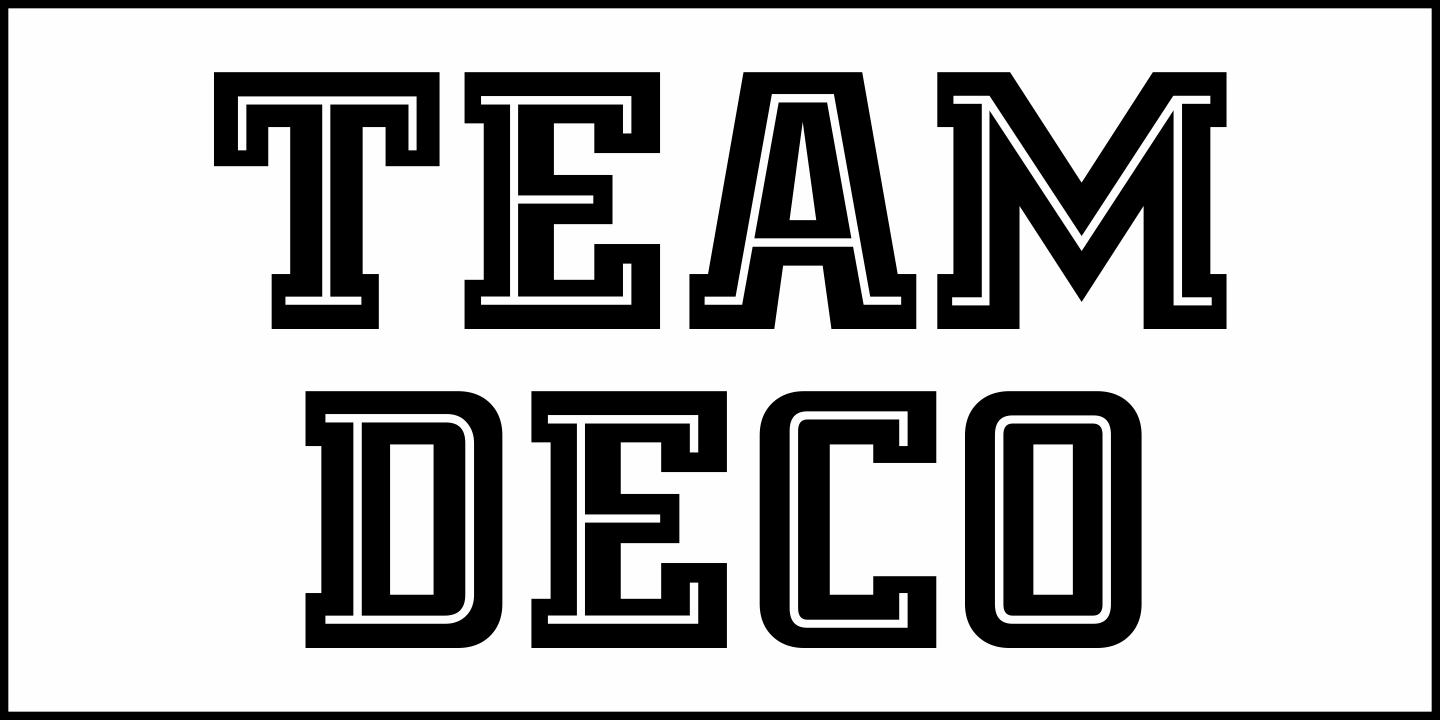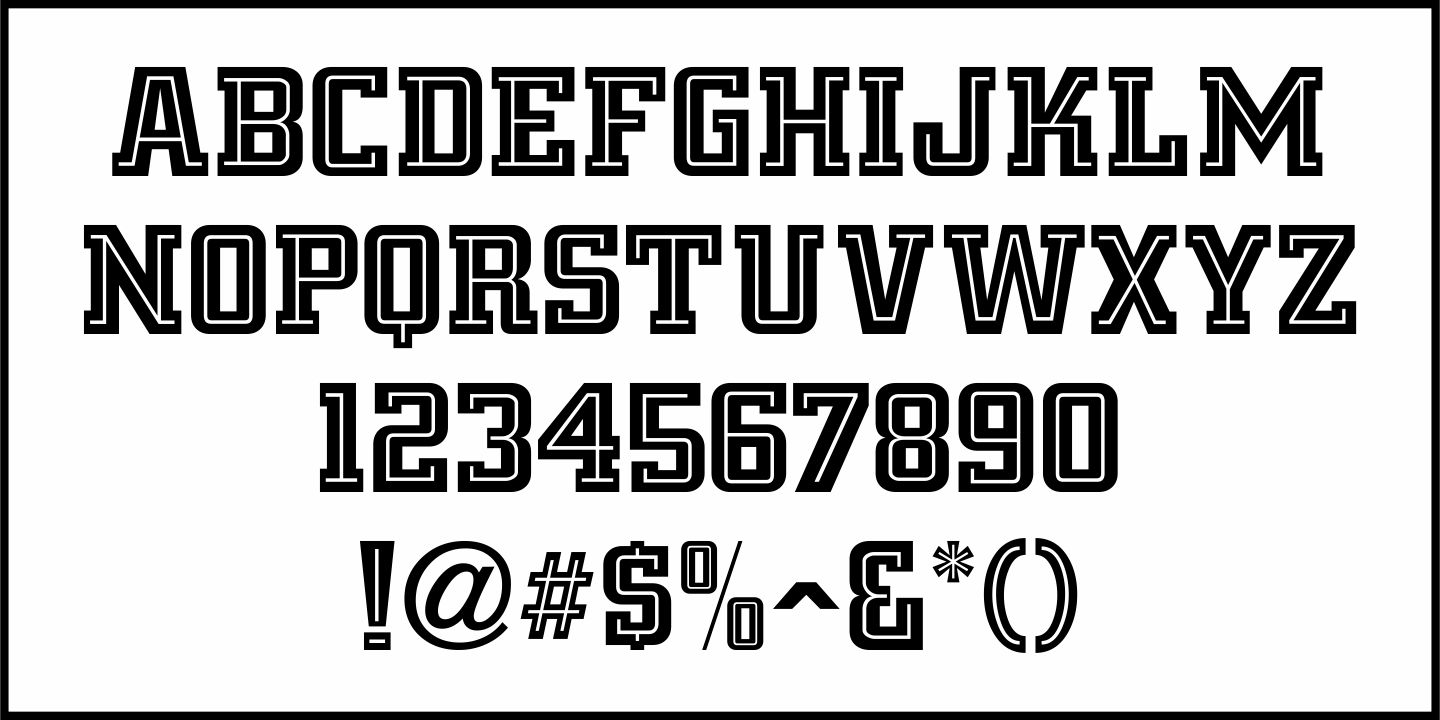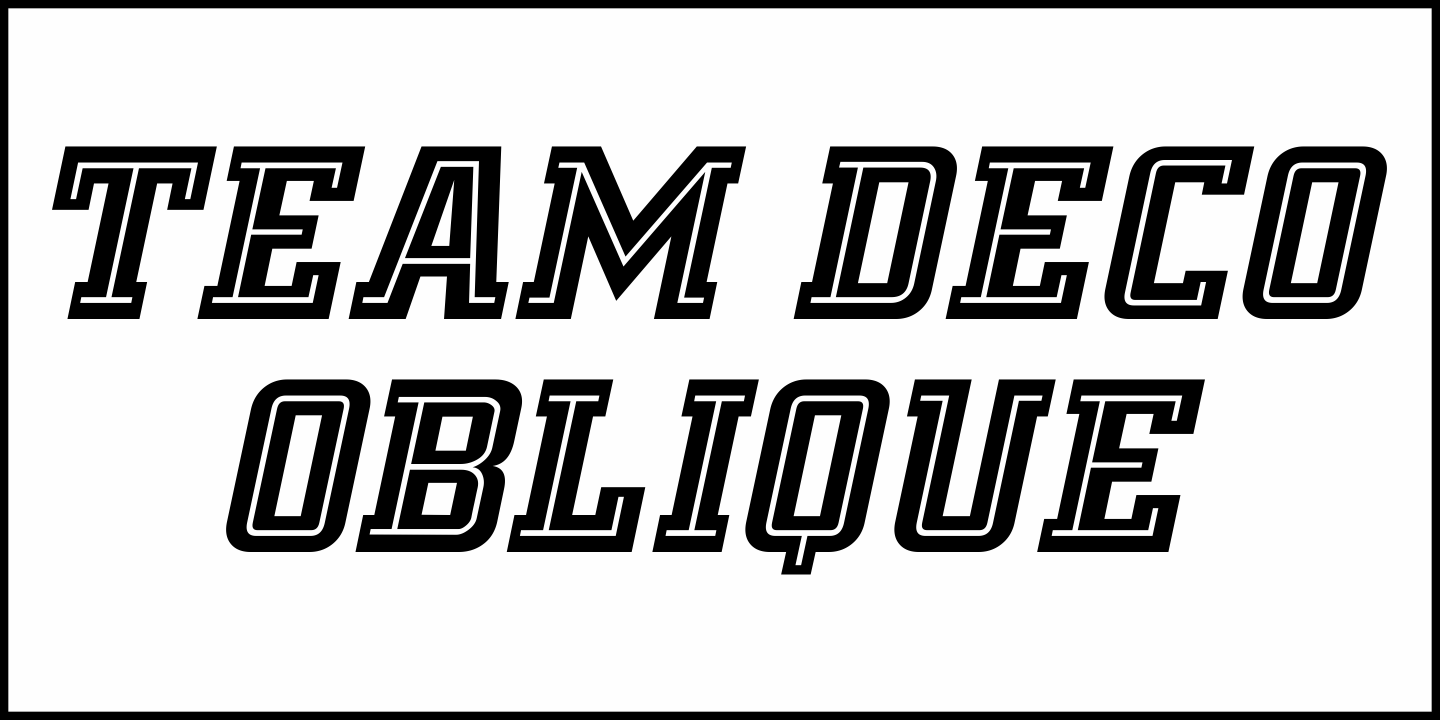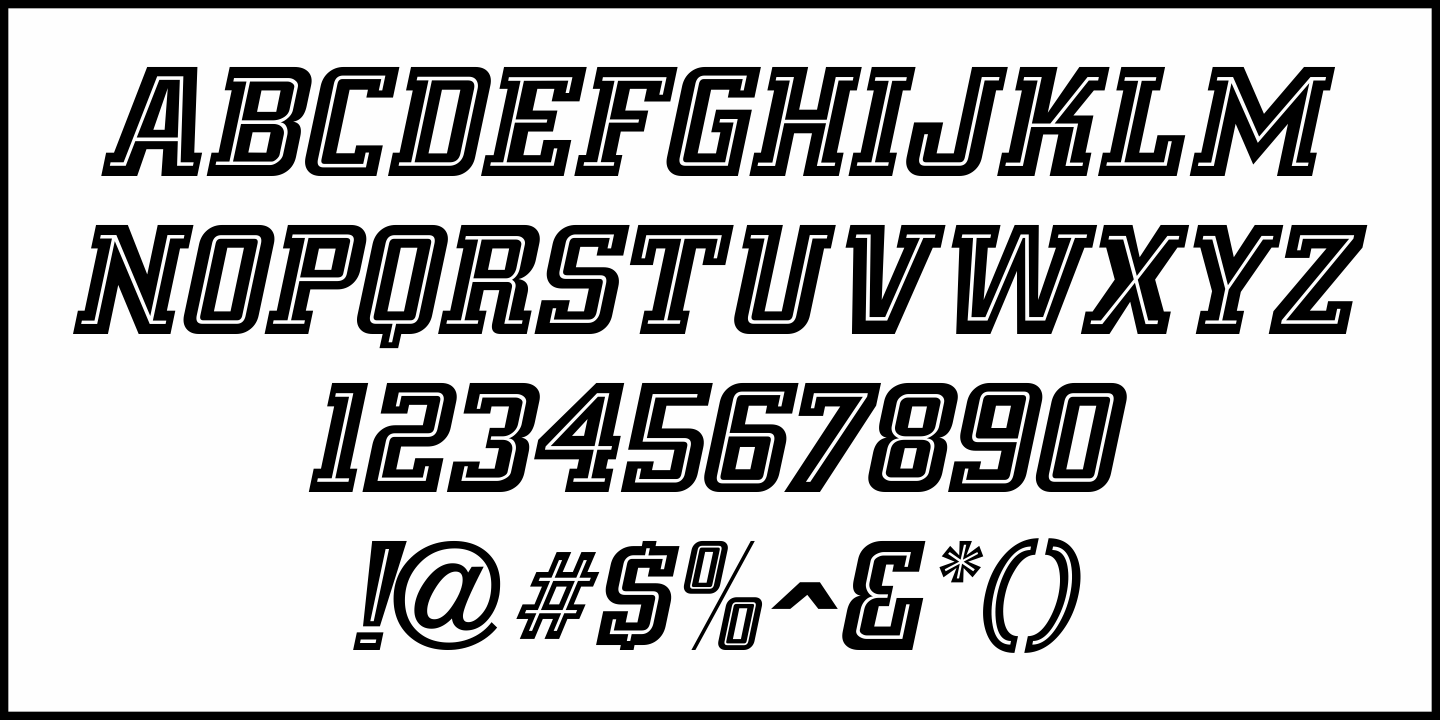
Team Deco
In an online edition of Modern Screen Magazine for March of 1936, many of the article headlines were set in a bold, slab serif inline font which (although possessing some Art Deco traits) could double as a sports font.
This is now available as Team Deco JNL in both regular and oblique versions.